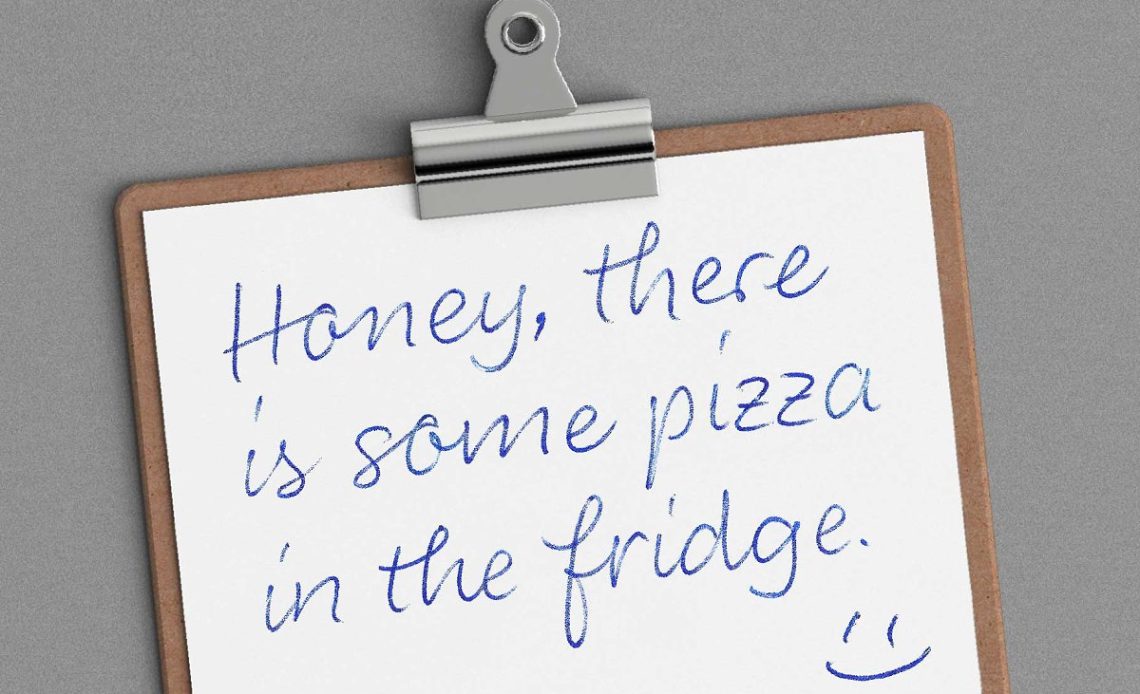
Introducing Color Font LiebeHeide, the perfect script font for those in search of the Best Fonts for the Letter R. Created by Ulrike Rausch, this amazing font family combines high-resolution digitized ballpoint pen letterings with OpenType features, resulting in a font that's both stunningly realistic and incredibly charming.
With almost 500 glyphs and typical handwriting attributes such as symbols, doodles, underlines, and strikethroughs, LiebeHeide is the ideal font for personalized mailings, packaging and editorial design, as well as social media and below-the-line marketing. Its authentic script draws attention to banners and memes, making it a must-have for guerilla marketing and other innovative campaigns.
Additionally, to increase performance, the font has 3 different resolutions, so that applications only load the size that is currently needed. Although it works best on light backgrounds, the font includes lots of alternative letterforms and ligatures to ensure a natural handwriting look. Plus, with language support for Latin, Western European, and Central European, LiebeHeide is versatile enough to suit a wide range of design projects.
So, if you're in need of a font that's not only visually stunning but also highly functional, look no further than Color Font LiebeHeide. With its amazing realism, unique features, and incredible versatility, it's the perfect choice for anyone looking to take their design projects to the next level.